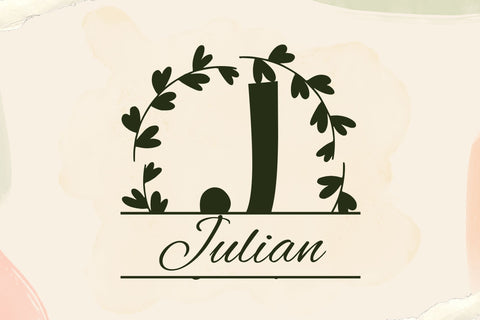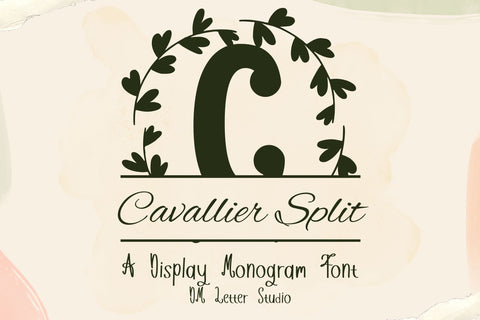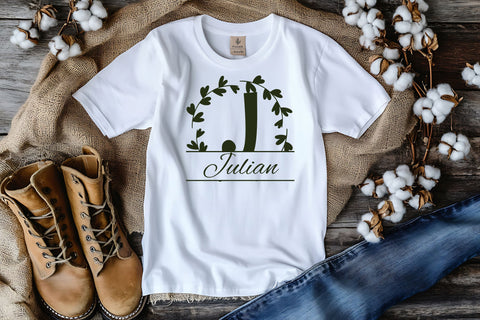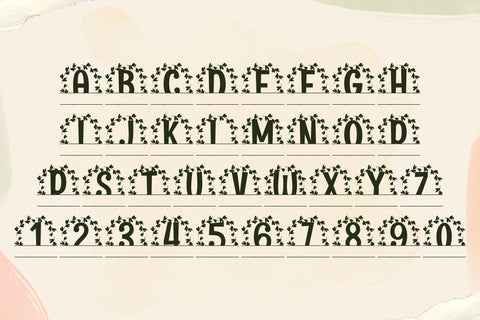
Cavallier Split Monogram – Classic Serif Split Monogram Font for Elegant Personalization
Cavallier Split Monogram is a classic serif split monogram font designed for elegant personalization and upscale branding. With its timeless serif shapes and a refined horizontal split, this font makes it easy to customize initials with names, dates, or decorative elements. Whether you're working on wedding designs, signature packaging, engraving projects, or Cricut crafts, Cavallier Split Monogram brings sophistication and clarity to every layout.
This font is inspired by traditional monogram engraving styles and built for modern-day creators who want both beauty and function. The bold serif structure ensures that the uppercase letters remain impactful and easily readable even when paired with fine script or decorative lines. The split center gives you a dedicated space to insert personalized text, perfect for digital or handmade gifts, wedding signage, event branding, or luxury logo design.
Cavallier Split Monogram is especially well-suited for laser-cut projects, vinyl decals, stationery, embossed cards, digital planners, and high-end product packaging. The serif details bring an air of prestige, while the clear-cut center keeps the design practical and adaptable for all kinds of applications. This monogram typeface includes full uppercase A–Z characters, numbers, punctuation, and multilingual accents to support international names and titles.
Classic Serif Design with Split Center – Elegant and functional for custom monograms.
Perfect for Personalization – Ideal for weddings, gifts, packaging, and engraving.
Multilingual Support – Full punctuation, numerals, and accented characters.